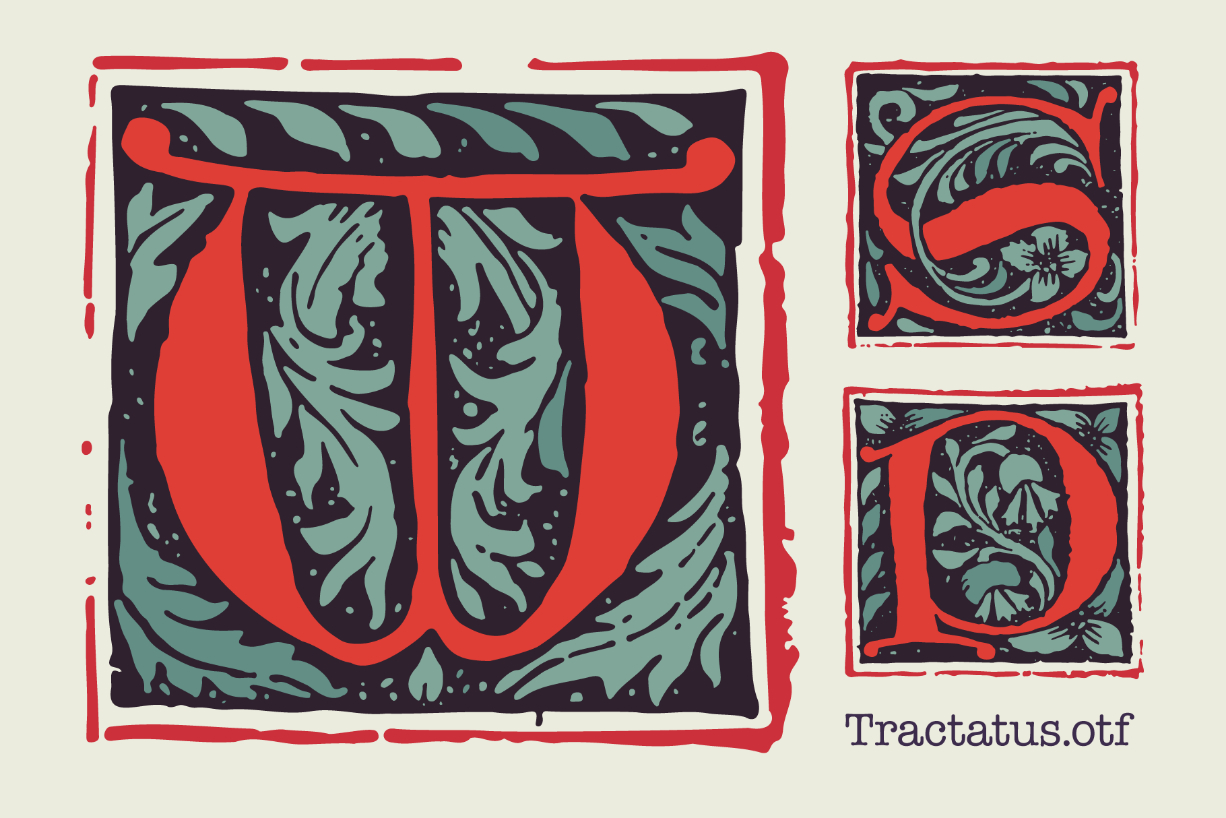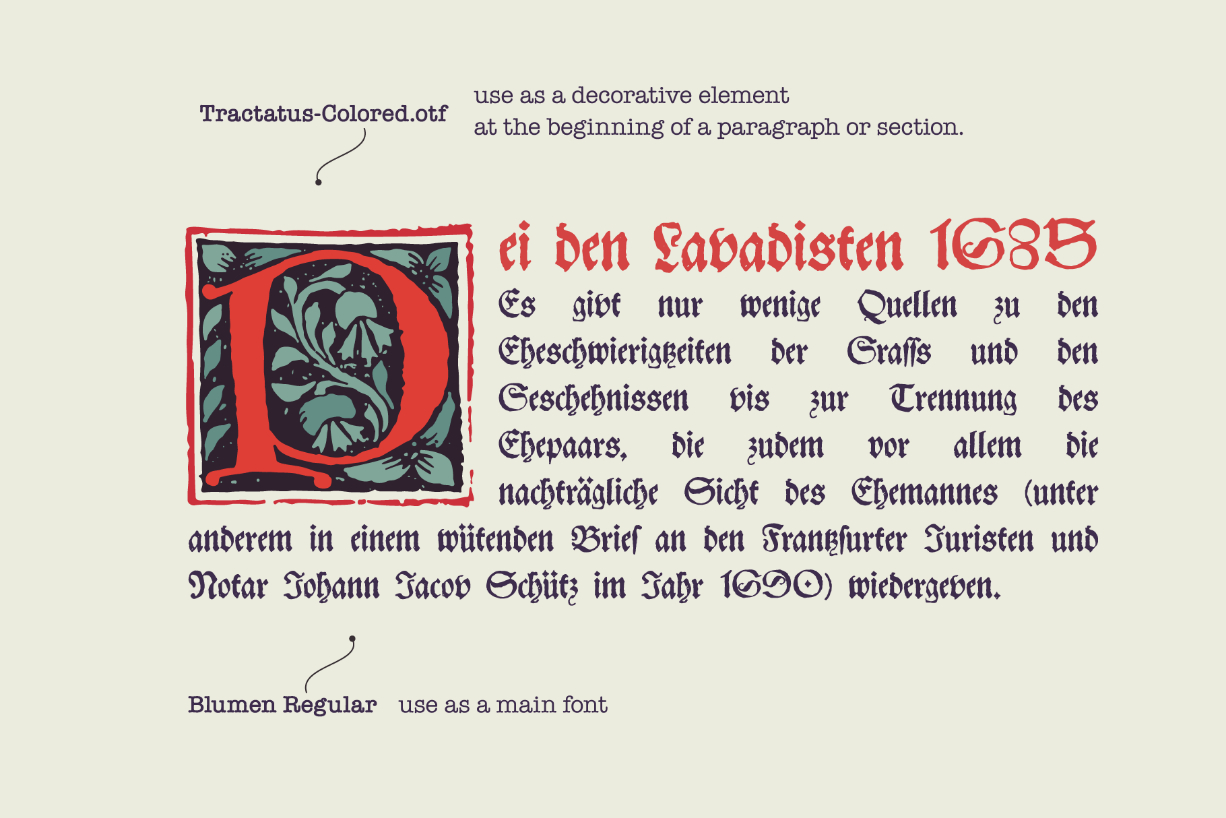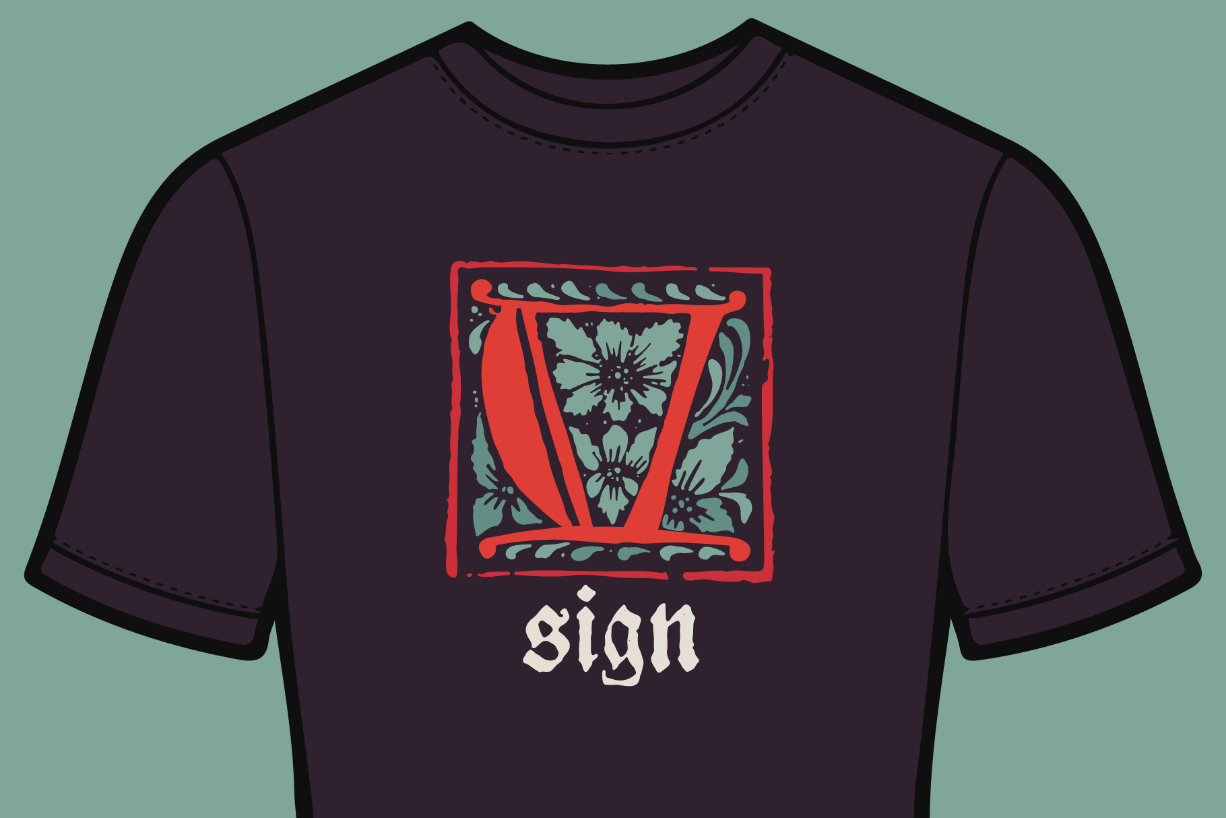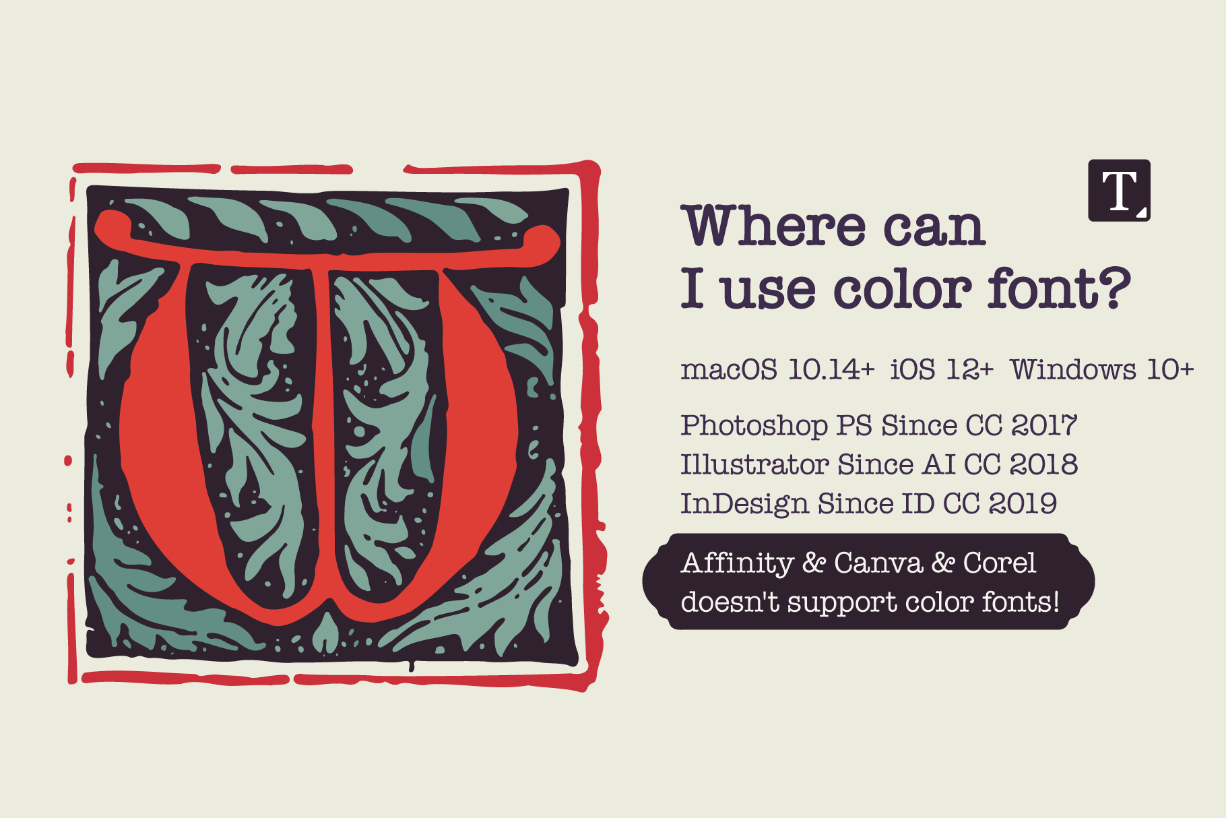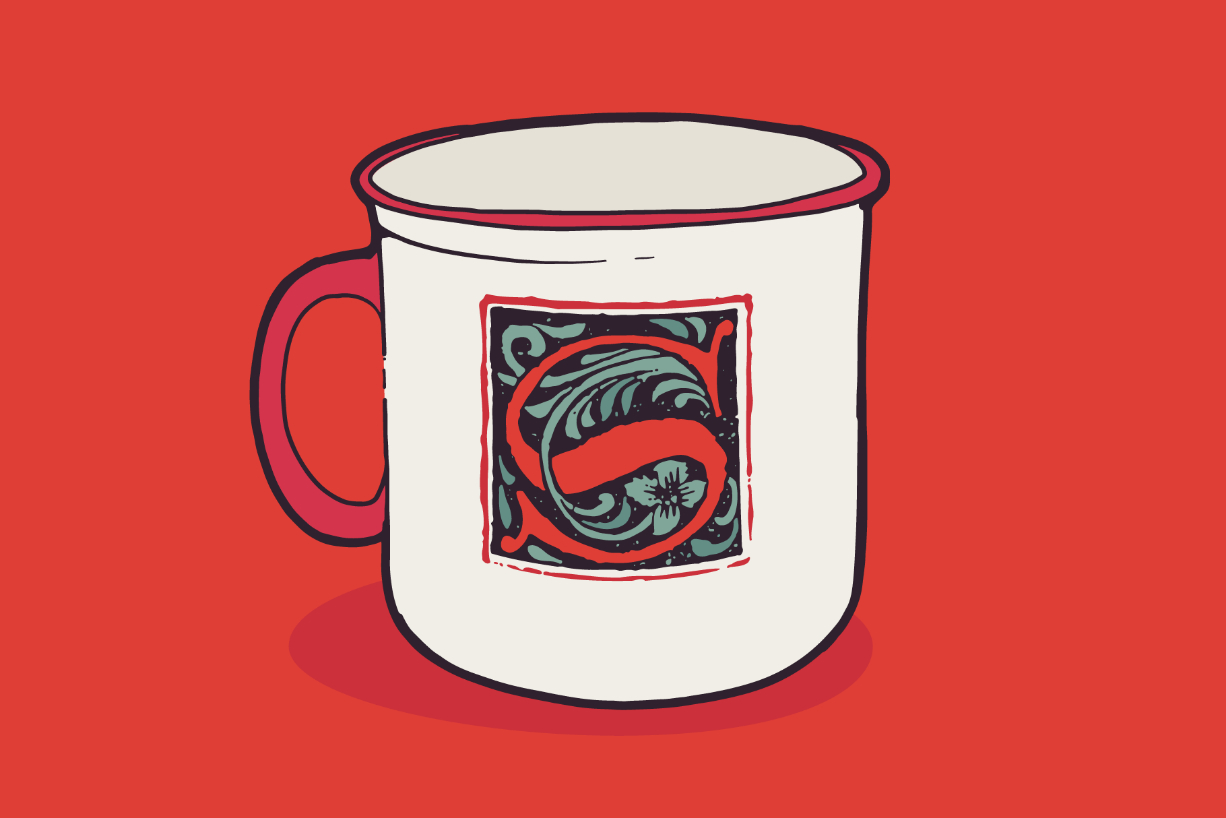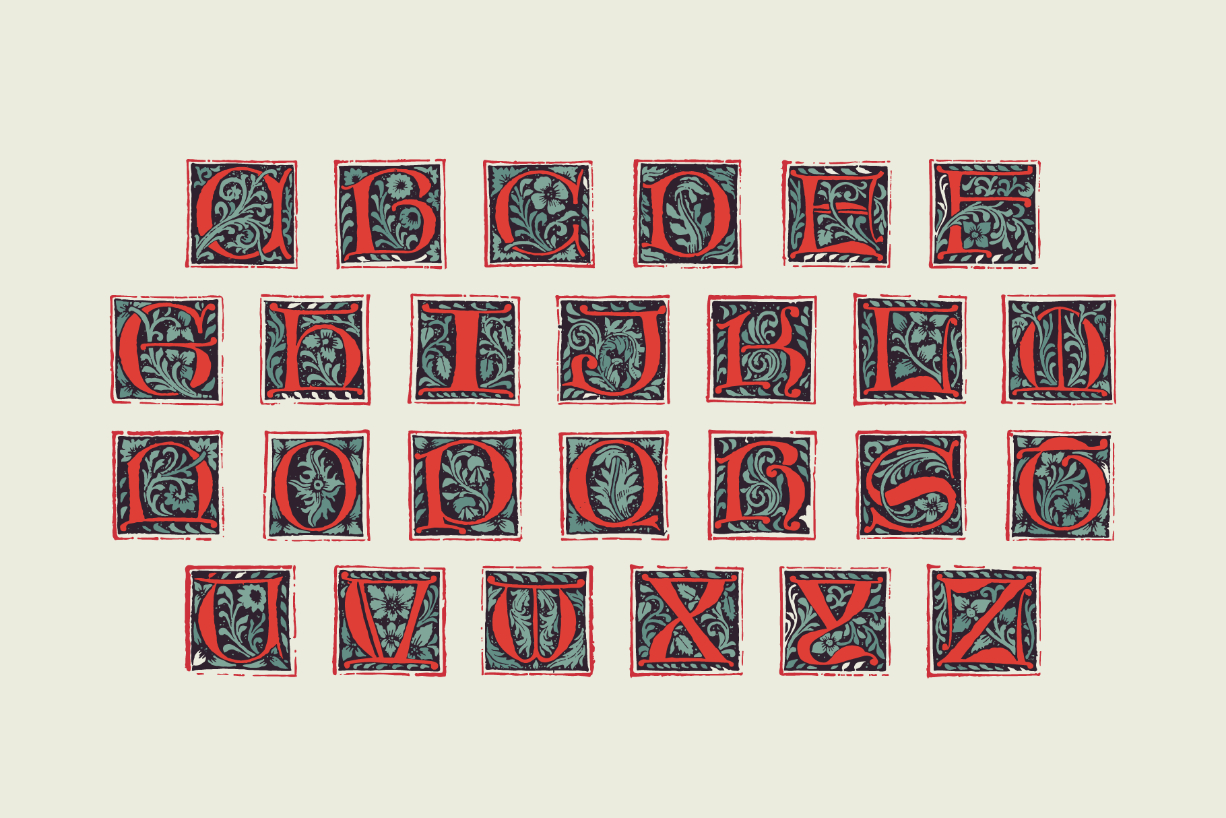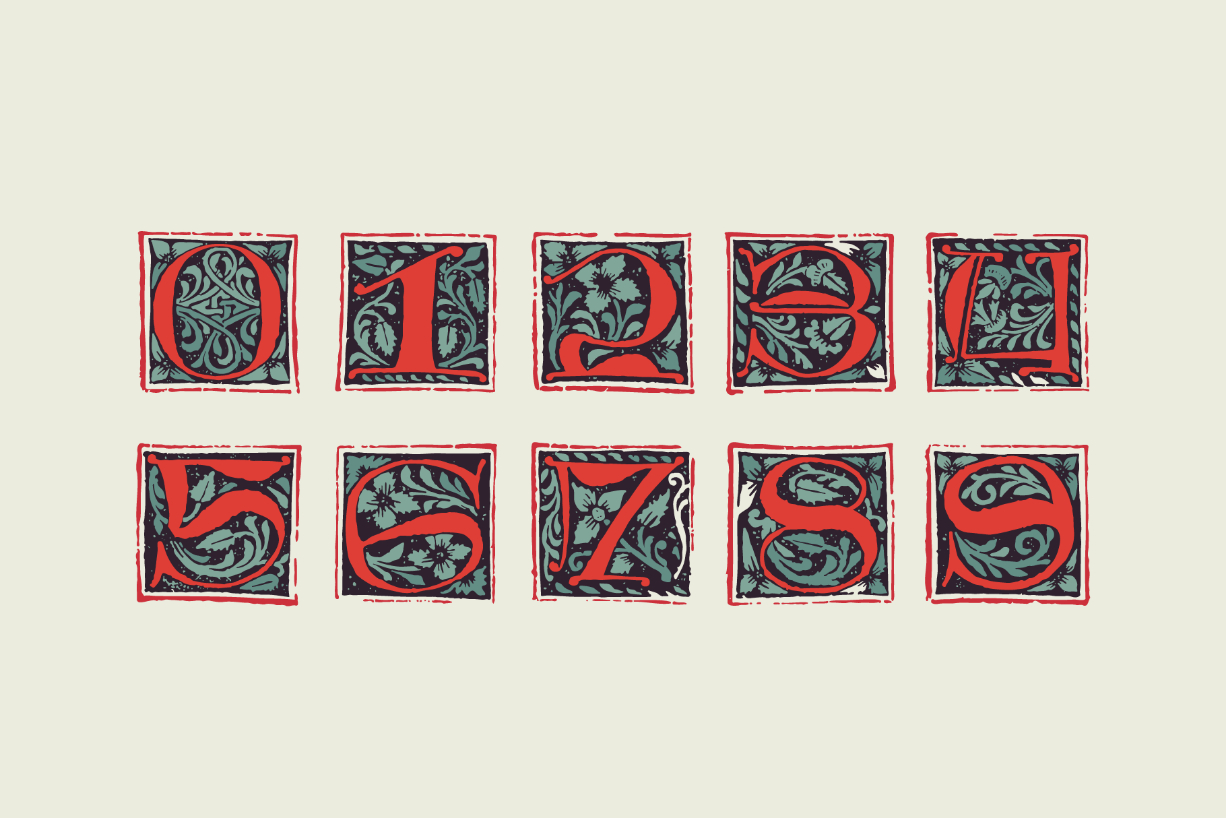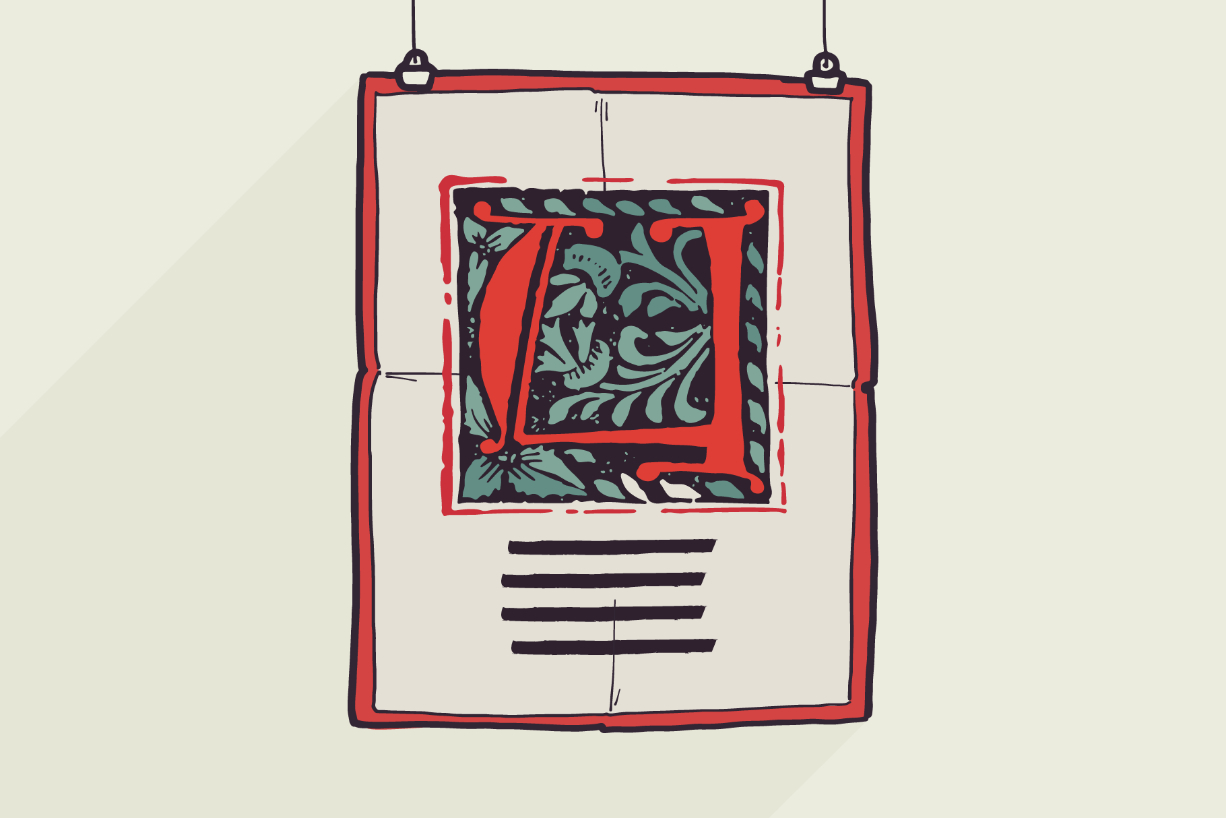
Tractatus Font
About Tractatus Font
Tractatus is a medieval and gothic font that exudes elegance and tradition. With its intricate and ornate details, this font is perfect for creating monograms and designs that evoke a sense of nostalgia and . Embrace the timeless beauty of Ptolemei and create truly unforgettable designs.